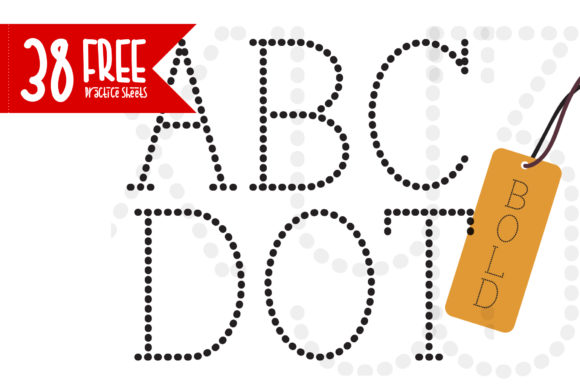
Introducing ABC Dot Bold Font: The Ultimate Clean and Simple Display Font
When it comes to creating visually appealing designs, the right font can make all the difference. In the world of typography, there are countless font styles to choose from, each with its own unique characteristics. One font that has gained popularity in recent times is the ABC Dot Bold font. In this article, we’ll take a closer look at what makes ABC Dot Bold a standout font and why it’s ideal for various design projects.
What is ABC Dot Bold Font?
ABC Dot Bold is a clean and simple display font designed to add a touch of elegance to your designs. Its minimalist approach makes it versatile and suitable for a wide range of applications. Whether you’re working on a school project, creating a website, designing business cards, or brainstorming ideas for a new brand, ABC Dot Bold is an excellent choice.
Key Features of ABC Dot Bold Font
• Clean and Simple Design: The font boasts a straightforward and uncomplicated design, making it easy to read and understand.
• Bold and Eye-catching: The bold style of ABC Dot Bold ensures that your text stands out, grabbing the attention of your audience.
• Versatile: This font can be used across various mediums, from digital platforms to print materials.
• Easy to Read: The clear and distinct letterforms make it easy for readers to comprehend your message.
Use Cases for ABC Dot Bold Font
The versatility of ABC Dot Bold font makes it suitable for a variety of design projects. Here are some of the most popular use cases:
1. School Work and Education
ABC Dot Bold is an excellent choice for school projects, presentations, and educational materials. Its clean design and bold style make it perfect for headings, titles, and emphasis.
2. Web Design
When it comes to web design, typography plays a crucial role. ABC Dot Bold can be used to create stunning website headers, titles, and even body text. Its simplicity and readability ensure a great user experience.
3. Business Cards and Stationery
Make a lasting impression with your business cards and stationery. ABC Dot Bold font adds a professional touch, making your brand stand out.
4. Posters and Flyers
Create eye-catching posters and flyers with ABC Dot Bold font. Its bold style and clean design ensure that your message grabs attention.
5. Branding and Logo Design
ABC Dot Bold can be used to create memorable brand names and logos. Its simplicity and uniqueness make it an excellent choice for businesses looking to establish a strong brand identity.
Benefits of Using ABC Dot Bold Font
There are several benefits to using ABC Dot Bold font in your designs:
1. Improved Readability
The clean and simple design of ABC Dot Bold ensures that your text is easy to read, reducing eye strain and improving comprehension.
2. Enhanced Visual Appeal
The bold style of ABC Dot Bold adds a touch of elegance to your designs, making them more visually appealing.
3. Versatility
ABC Dot Bold can be used across various mediums, from digital platforms to print materials, making it a versatile font for designers.
4. Time-Saving
With ABC Dot Bold font, you can create professional-looking designs quickly, saving you time and effort.
In conclusion, ABC Dot Bold font is a clean and simple display font that offers a range of benefits for designers. Its versatility, readability, and visual appeal make it an excellent choice for various design projects. Whether you’re working on a school project, creating a website, designing business cards, or brainstorming ideas for a new brand, ABC Dot Bold font is sure to impress.